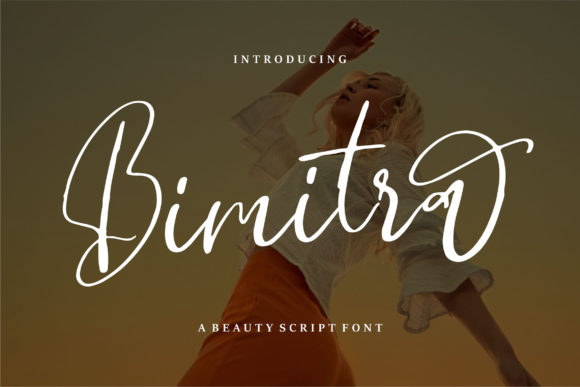
Bimitra Font: Elevate Your Designs with Elegance and Sophistication
In the world of typography, fonts play a crucial role in conveying the message and aesthetic of a design. Among the numerous fonts available, Bimitra stands out for its delicate and stylish script font, perfect for designers and crafters looking to add a touch of elegance to their creations. In this article, we’ll dive into the features and benefits of Bimitra font, exploring how it can elevate your designs and take them to the next level.
What is Bimitra Font?
Bimitra is a beautifully crafted script font, characterized by its clean and contemporary design. Each character is meticulously shaped to provide a balanced and harmonious look, making it an excellent addition to any design pool. The font’s delicate nature allows it to complement a wide range of design styles, from minimalist to luxurious, without overpowering the overall aesthetic.
Key Features of Bimitra Font
- Delicate and Stylish: Bimitra’s script font is designed to add a touch of sophistication to your designs. Its elegant strokes and curves create a beautiful visual impact, perfect for projects that require a high level of refinement.
- Clean and Contemporary: The font’s clean design ensures that it remains legible and easy to read, even at smaller sizes. This makes it an excellent choice for body text, headings, and titles.
- Balanced Character: Bimitra’s characters are carefully crafted to provide a balanced look, ensuring that your text remains visually appealing and easy to read.
- Versatile: Bimitra font can be used in a wide range of design projects, including branding, packaging, posters, and digital media.
Benefits of Using Bimitra Font
Using Bimitra font in your designs offers several benefits, including:
- Enhanced Visual Appeal: Bimitra’s elegant design adds a touch of sophistication to your designs, making them more visually appealing and engaging.
- Improved Readability: The font’s clean and legible design ensures that your text is easy to read, reducing eye strain and improving the overall user experience.
- Flexibility: Bimitra font can be used in various design projects, making it an excellent addition to your font library.
- Unique Identity: Bimitra’s distinctive design allows you to create unique and recognizable brand identities that stand out from the competition.
Tips for Using Bimitra Font Effectively
To get the most out of Bimitra font, consider the following tips:
- Pair with Complementary Fonts: Combine Bimitra with complementary fonts to create a harmonious and visually appealing design.
- Use for Headings and Titles: Bimitra’s elegant design makes it perfect for headings and titles, adding a touch of sophistication to your designs.
- Experiment with Colors: Try pairing Bimitra with different colors to create a unique and eye-catching design.
- Pay Attention to Spacing: Ensure that you leave sufficient spacing between lines and characters to maintain readability and visual appeal.
Bimitra font is an excellent choice for designers and crafters looking to add a touch of elegance and sophistication to their designs. Its delicate and stylish script font, clean and contemporary design, and balanced character make it perfect for a wide range of design projects. By incorporating Bimitra into your font library, you’ll be able to create visually appealing and engaging designs that stand out from the competition.
Whether you’re working on a branding project, packaging design, or digital media, Bimitra font is sure to elevate your designs and take them to the next level. So why not give Bimitra a try and experience the benefits of this beautiful font for yourself?